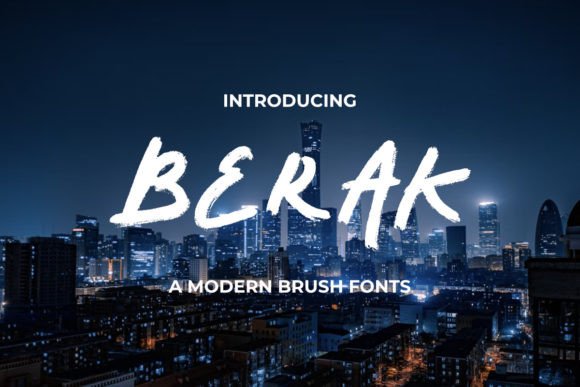
Introducing Berak Font: The Ultimate Brush Font for Creative Designs
Are you a designer or crafter looking for a unique and versatile font to elevate your creative projects? Look no further than Berak Font, a natural and friendly brush font that’s perfect for a wide range of designs. With its distinctive style, Berak Font is sure to inspire your imagination and take your designs to the next level.
The Unique Style of Berak Font
Berak Font boasts a one-of-a-kind style that’s both natural and friendly. Its brush-like strokes and subtle imperfections give it a handcrafted feel that’s perfect for designs that require a personal touch. The font’s unique character makes it incredibly fitting for a large pool of designs, from rustic and vintage-inspired projects to modern and playful ones.
Endless Design Possibilities with Berak Font
The best part about Berak Font is that its uses are limitless. The only limit is your imagination! Whether you’re designing a logo, creating a social media graphic, or crafting a handmade project, Berak Font is the perfect choice. Its versatility makes it suitable for various design styles, including:
• Rustic and vintage-inspired designs
• Modern and playful designs
• Handmade and crafty projects
• Wedding and event designs
• Branding and packaging designs
Why Designers and Crafters Love Berak Font
Berak Font has quickly become a favorite among designers and crafters due to its unique style and versatility. Here are just a few reasons why:
• Easy to read and use: Berak Font is clear and legible, making it perfect for designs that require a lot of text.
• Highly customizable: The font’s natural and handcrafted feel makes it easy to pair with other fonts and design elements.
• Unique and eye-catching: Berak Font’s distinctive style is sure to grab attention and make your designs stand out.
Tips for Using Berak Font in Your Designs
To get the most out of Berak Font, here are a few tips to keep in mind:
• Experiment with different sizes and colors: Berak Font looks great in a variety of sizes and colors, so don’t be afraid to try out different combinations.
• Pair it with other design elements: Berak Font pairs well with illustrations, graphics, and other design elements, so don’t be afraid to get creative.
• Use it to add a personal touch: Berak Font’s handcrafted feel makes it perfect for adding a personal touch to your designs.
In conclusion, Berak Font is a natural and friendly brush font that’s perfect for designers and crafters looking to add a unique touch to their creative projects. With its versatile style and endless design possibilities, Berak Font is sure to inspire your imagination and take your designs to the next level. So why wait? Download Berak Font today and start creating!